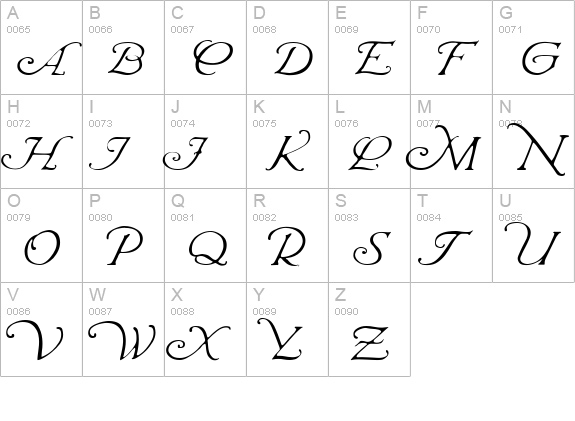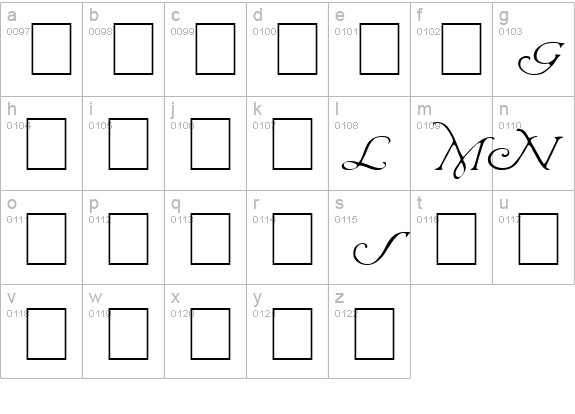
Wrenn Initials Light is a refined, elegant variant in the Wrenn typeface family \xE2\x80\x94 well suited to elegant body text, refined sub-headings, and luxury branding.